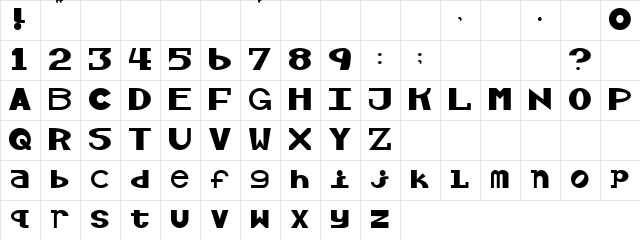
Imprezz Jin Regular
Design Context for Imprezz Jin Typeface
Imprezz Jin is a composed and adaptable typeface that performs quietly and consistently across a wide range of design contexts.